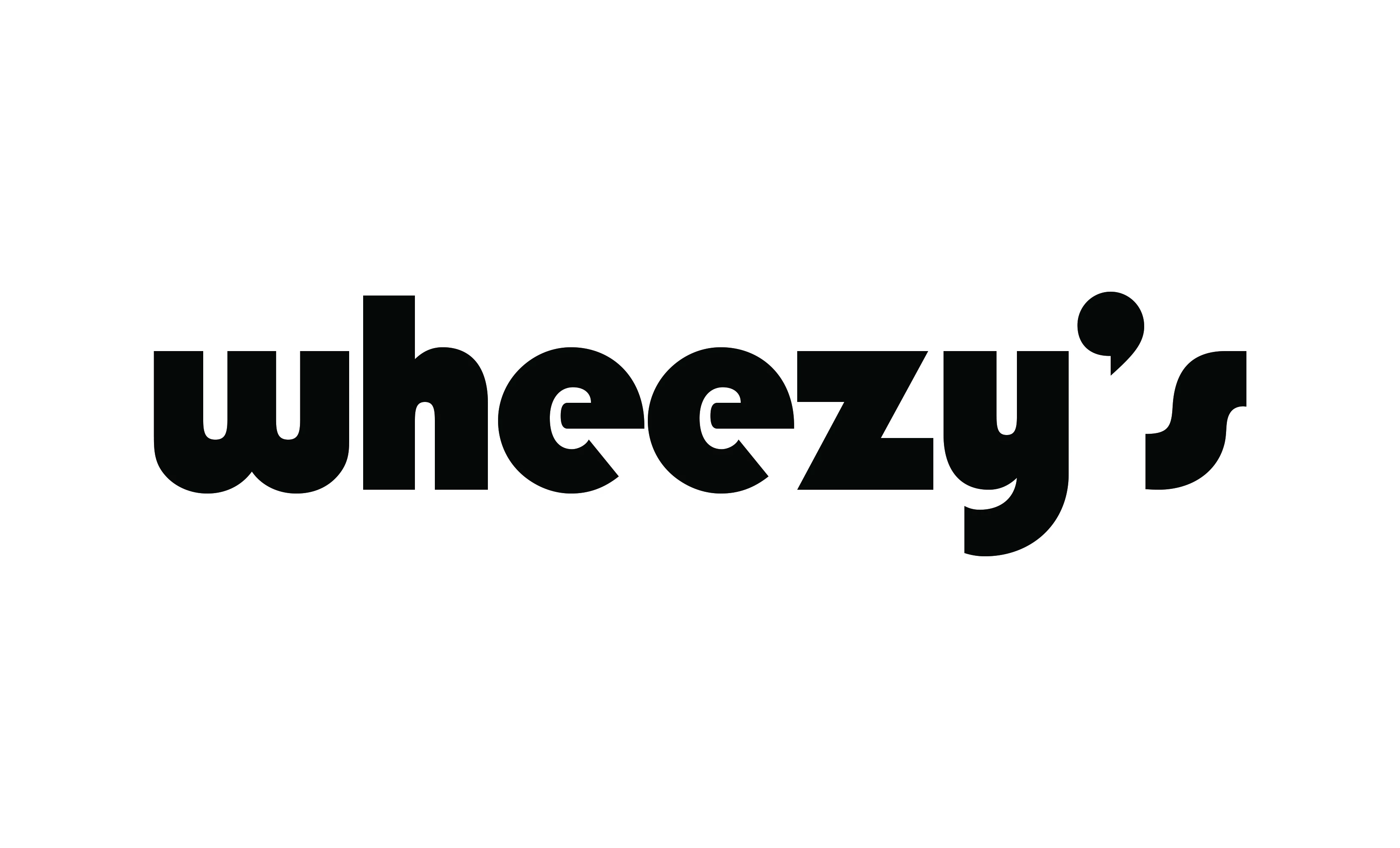
Hey all!  I am a new design student (just finished my first semester on the way to a BA degree in Graphic Design). I find that I struggle with pairing fonts; it's a black hole I go down & have trouble getting out of!
I am looking for a secondary font that might compliment one similar to the one below. (I chose this style of font due to its similarity to 'The Jeffersons' TV show title font. )
After reading another forum post from another user, also looking for font pairing suggestions, I thought it helpful to include more information regarding the use & current design of this project.
My boss asked me to create a logo/design for the name of her boat: 'Wheezy's Way' (inspired by her childhood nickname, 'Wheezy', taken from the classic TV show, The Jeffersons).
The design needs to be fairly simple as it will be printed as a large decal or die-cut, which will then be applied to the back of her boat.
The secondary font I am looking for suggestions on is for the word 'Way'.
I will either be designing the name in all lowercase or with the first letter of each word in caps.
I hope that's enough info to spark some inspiration! 😉 Like I said before, I am SUPER new to the world of design so any specific Adobe font suggestions, or simply suggestions as to what styles &/or features I should focus my search on would be GREATLY appreciated!!
I generally start with a font study (exercise) when looking for fonts that work well together. You can use Illustrator or any other application that will give you a large art board to work with. It's common to see a bold face sans serif font contrasted with an elegant script or serif font. If you have used the Font Style wheel in Adobe Spark that also a fun quick way to get ideas and springboard from there.
Here are some things to keep in mind:
1. Opposites attract - Serif/sans serif - Bold/light - Italics/regular
2. Hierarchy - know which words to highlight for prominence
3. Look  for font families that have lots of styles within them and use varying weights for accent
4. Do an  image search on Font Pairing Ideas for inspiration
5. If you find a font pairing idea that you like and need to identify the font use the 'Match Font' feature in Ps
6. Work in B&W before you introduce colors
Show us some ideas that you've come up with if you'd like more feedback -  Have fun!!!
cmgap, this was so helpful! Thank you! Before posting the question I had a design similar to the one mentioned by Michael. With his validation & your tips, I have no doubt I will be able to find a match that I love! I was beginning to doubt the use of the 'Jefferson's' font (as I'm not sure how I feel about it in general) but I'm hoping that I can find the perfect match for it that will bring the design together as it appears in my head.
One way to complement large blocky text like yours is to offset it with graceful, fine script, something like the example below. There are many other possibilities, but maybe this will get you started. (I warped the text and added a swoosh line below it to accent the gracefulness of the script).